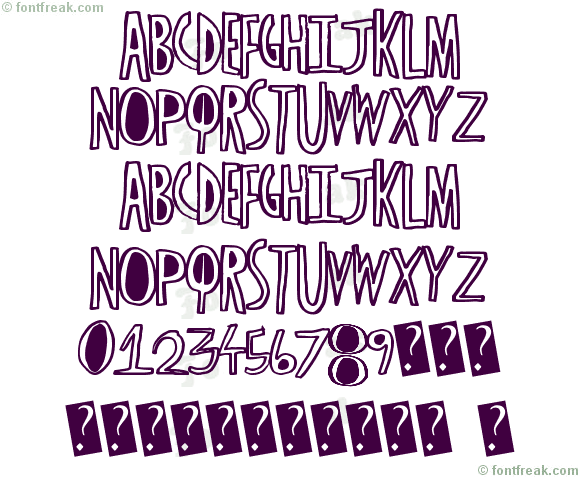
BasicHeader
BasicHeader by Xerographer Fonts is a distinctive display typeface that captures attention with its playful and informal character. This font is characterized by its bold, hand-drawn appearance, featuring thick stroke weights and a lively, exaggerated style. The design exhibits minimal contrast in stroke weight, which contributes to its approachable and casual aesthetic. The spacing is generous, allowing each letter to breathe while maintaining cohesion, making it ideal for various applications.
This font excels in settings where a creative edge is desired. It is perfect for wedding invitations, adding a whimsical touch to the event's branding. Additionally, BasicHeader works wonderfully for movie posters, where its unique flair can draw viewers' eyes and convey a sense of excitement. Small business owners can utilize this font for restaurant menus, providing a friendly and inviting atmosphere that resonates with diners. Content creators will find it useful for social media graphics, where standing out is essential in a crowded digital landscape.
Targeting graphic designers and small business owners alike, BasicHeader offers a versatile option for those looking to infuse their projects with personality and charm. Its freeware license allows for easy access, making it an attractive choice for budget-conscious creatives.
What sets the BasicHeader font apart is its ability to strike a balance between fun and functionality. It captures the essence of hand-crafted design while remaining highly legible, making it suitable for both print and digital formats. For those seeking a font that combines creativity with ease of use, the BasicHeader font free download is a valuable addition to any designer's toolkit.